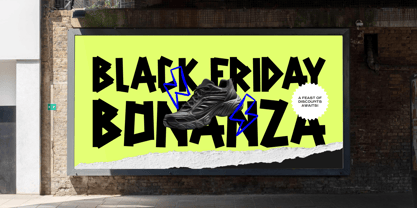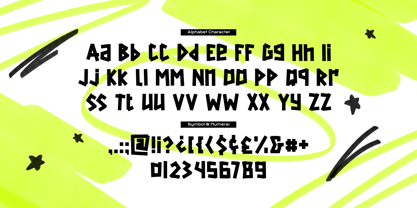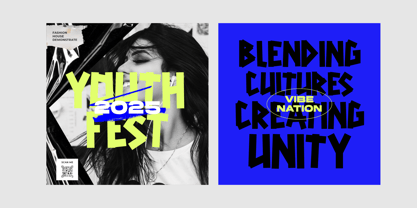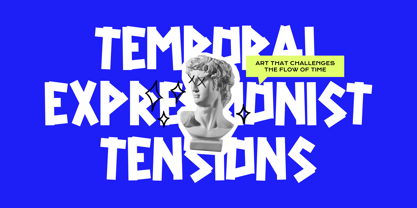
Blacktape
von Imoodev
Die Schriftfamilie Blacktape wurde von Aulia Savira Putri entworfen und von Imoodev veröffentlicht. Blacktape enthält 1 Stile.
Blacktape edgy display font, featuring a distinctive DIY aesthetic inspired by torn and hand-cut tape. This font showcases sharp, irregular edges and uneven strokes that mimic letters cut from black tape, evoking an artistic urban street style.
The letters are bold and geometric, with unique angles and subtle distortions that create a dynamic, energetic feel making this font an ideal choice for music or festival posters, rock- or punk-inspired themes, product packaging (skate gear, craft supplies, indie brands), merchandise designs, social media graphics, and bold promotional materials such as Black Friday ads or streetwear branding.